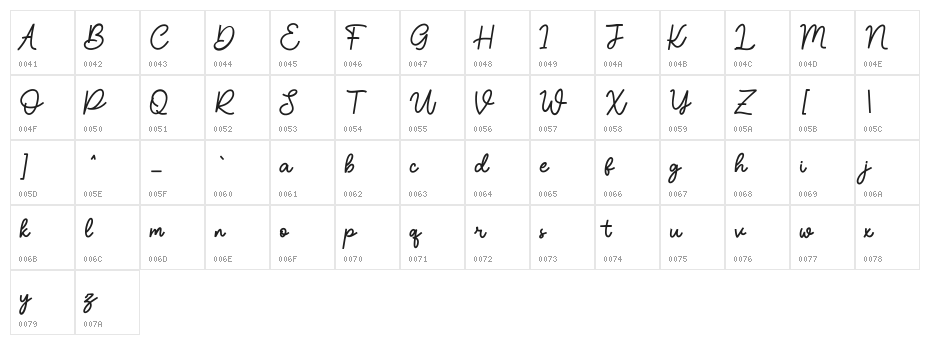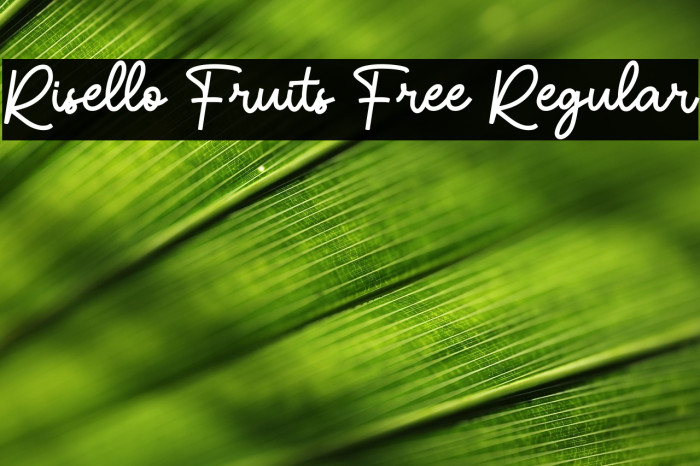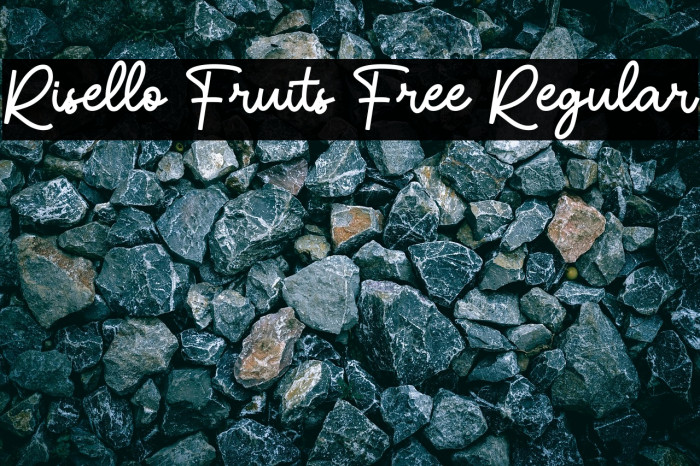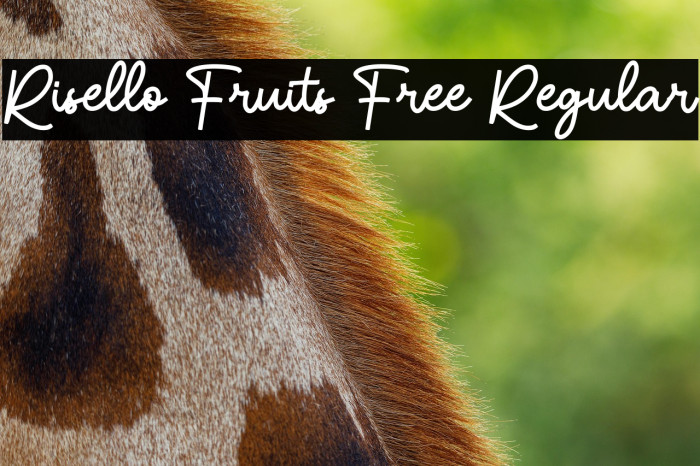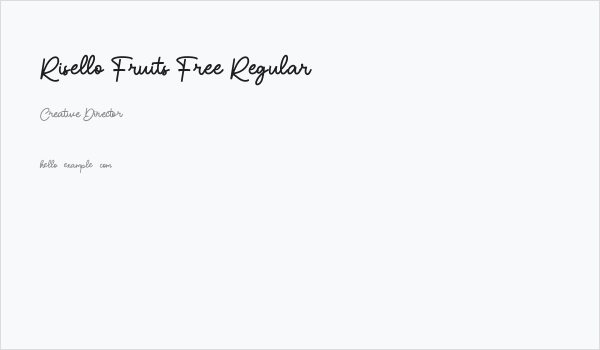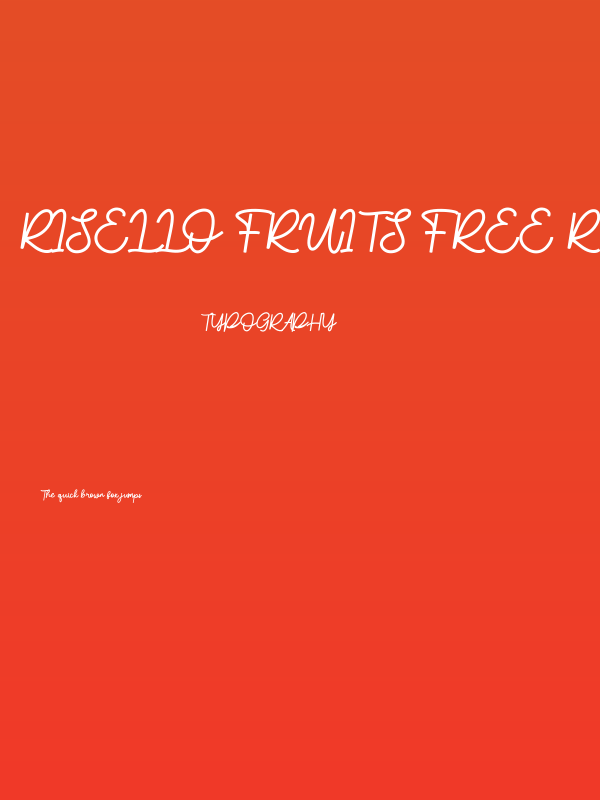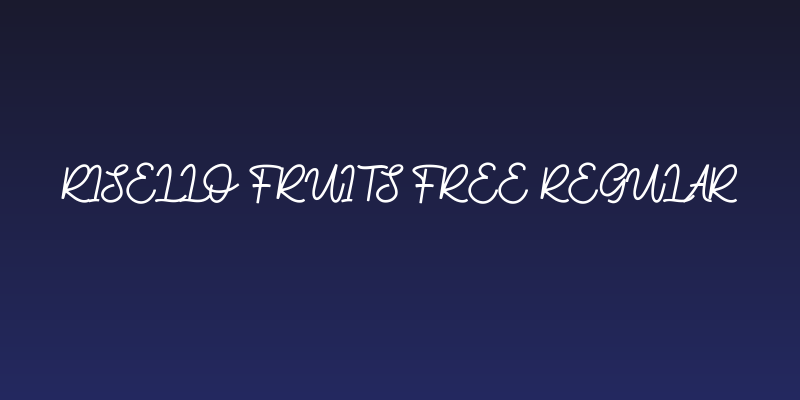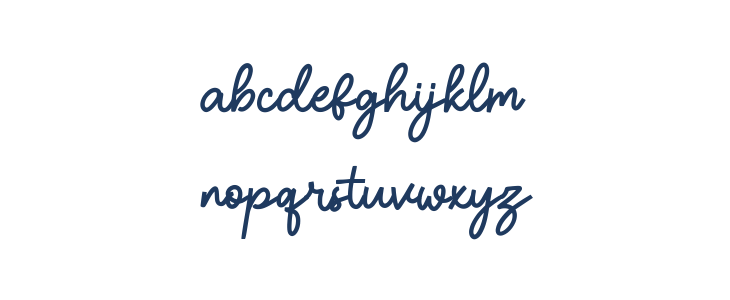
Risello Fruits Free Regular Font
Risello Fruits Free Regular Description
This font features a playful and elegant script style, characterized by its flowing, cursive letterforms. The uppercase letters exhibit a graceful, looping design, while the lowercase letters maintain a smooth and connected appearance. The overall aesthetic is both whimsical and sophisticated, making it suitable for a variety of creative applications. The font's strokes are consistent in thickness, providing a balanced and harmonious look. Its unique style is ideal for projects that require a touch of elegance and personality.
| Overall Style | Elegant, Whimsical |